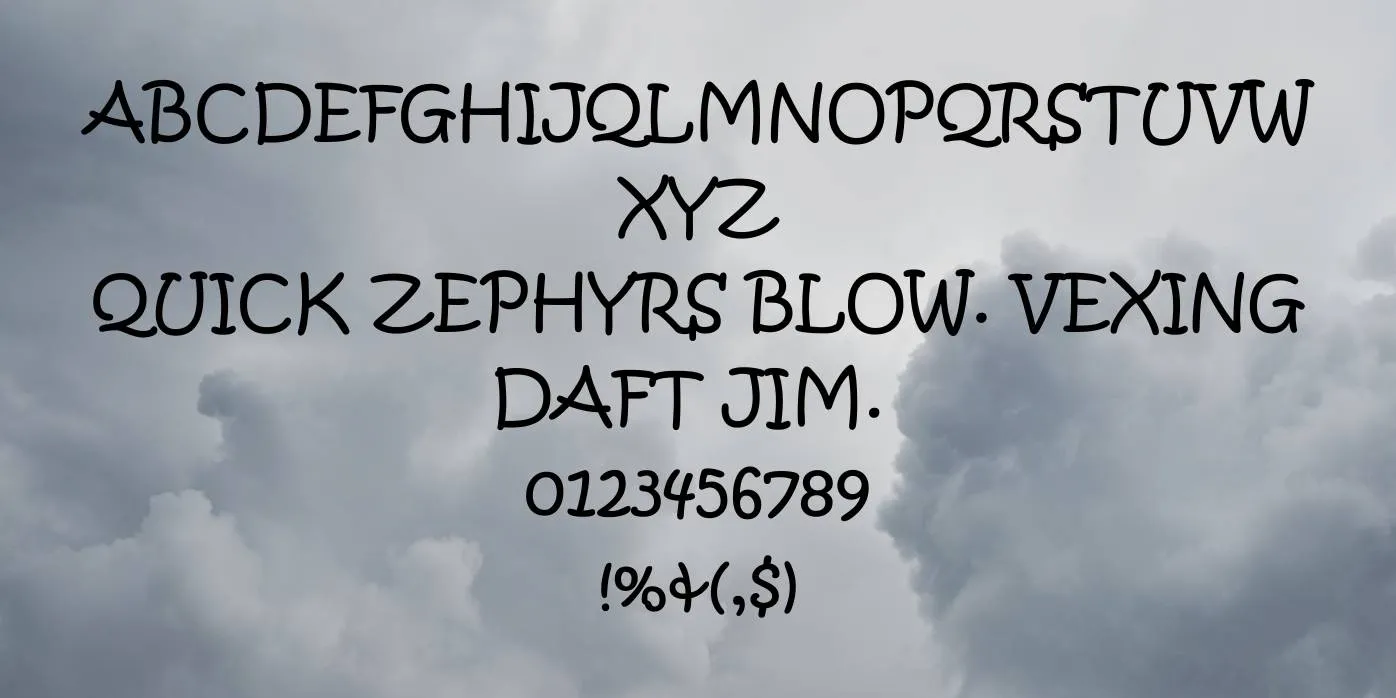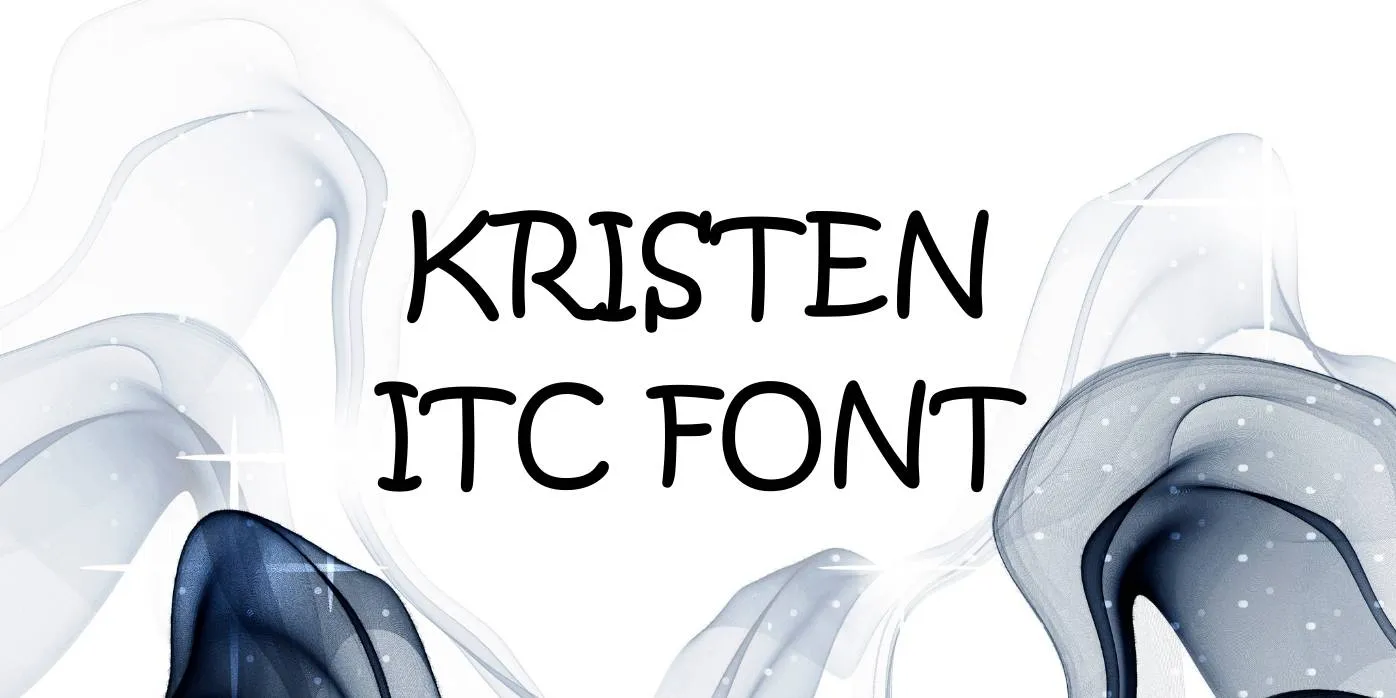
Kristen Itc Font
Expressing you a beautiful and casual typeface that has lightweight playful characters and beautiful edges known as Kristen Itc font. The designer of this typeface is George Ryan and it was specially designed for ITC (International Typeface Corporation). The typeface took inspiration from a handwritten menu at the venue of Massachusetts and Cambridge restaurant. It has an asymmetric arrangement that seems like the handwriting of children.
The font family has TTF features and its TrueType style had been dispatched with Microsoft Publisher 2000. This gorgeous typeface has elegant Uppercase and Lowercase Letters, Numbers, and Numerals, Basic punctuation, Unique glyphs, and useful symbols that you can see over the view image. It can also provide the best pairing function with Sacramento Font.